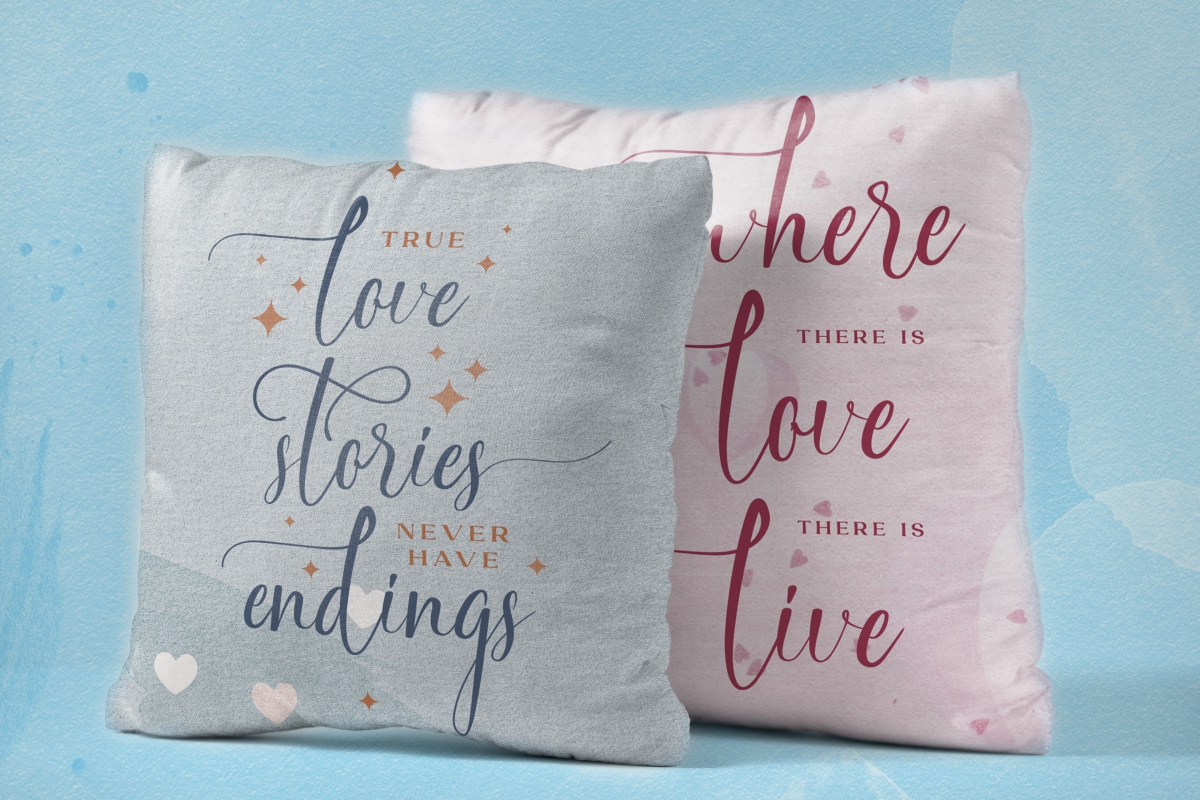
South Gateway Font
South Gateway Calligraphy Font
This is a calligraphy font with beautiful blend of modern and classic typography styles. This font is crafted carefully in every its single letter so we can make sure it has great looking, inspired by the handwriting of Italian women and ancient manuscripts. Carefully designed to work together in harmony and this one should make your designs instantly professional and jaw-dropping!
South Gateway Font includes full set of Uppercase and Lowercase Basic Characters, Numerals and Punctuation. Also has alternate and ligatures characters to create the perfect awesome look which adds more aesthetic fonts to enhance your awesome projects. Many industries will suit this font great including cosmetic, fashion, photography, wedding, writers etc